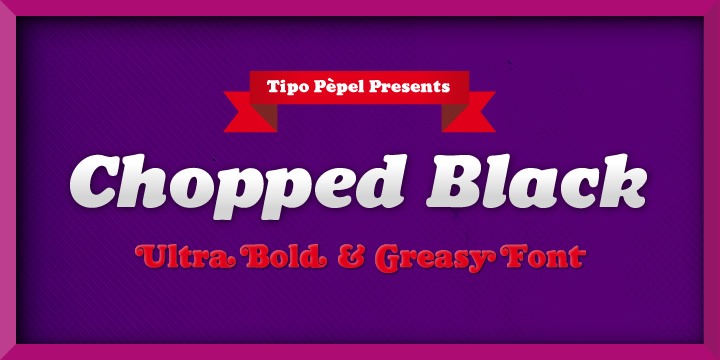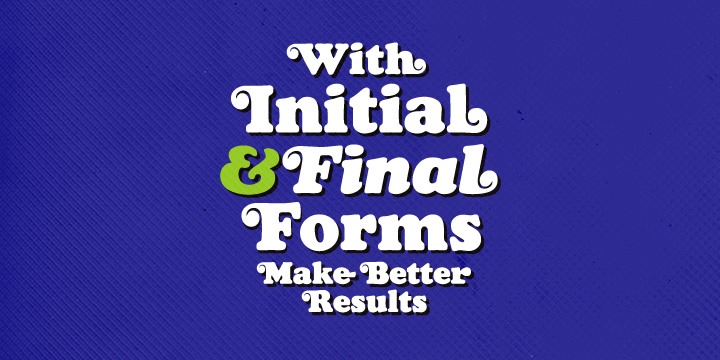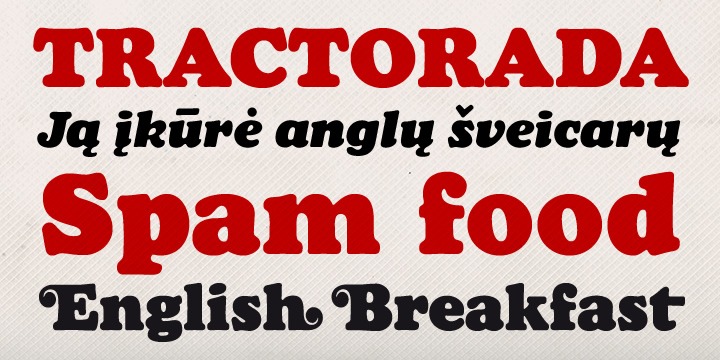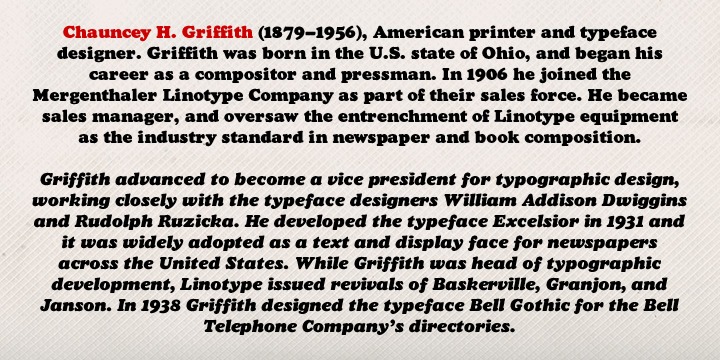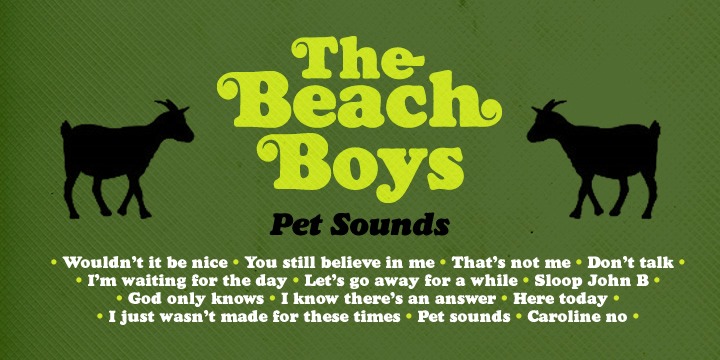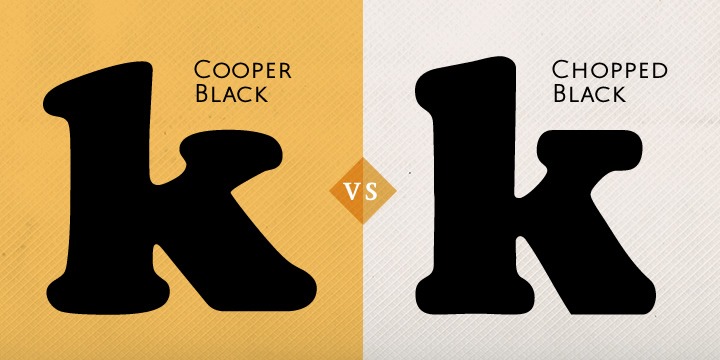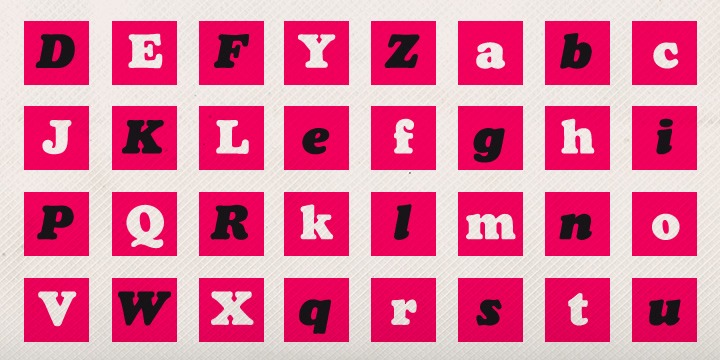
Chopped Black
Font Family by Tipo Pèpel
Buy NowThis typeface was inspired by the font Pabst Heavy, designed by Chauncey Hawley Griffith in 1928 for Linotype. Because of its formal characteristics, recalls the popular Cooper Black and probably was the reaction of Linotype to counter the popularity of this font distributed by the 'American Type Founders' was acquired.
It's a heavy typeface, ideal for headlines or for use in creating logos, rounded shapes and gestures evoke dynamism and make it perfect to highlight specific words or phrases.